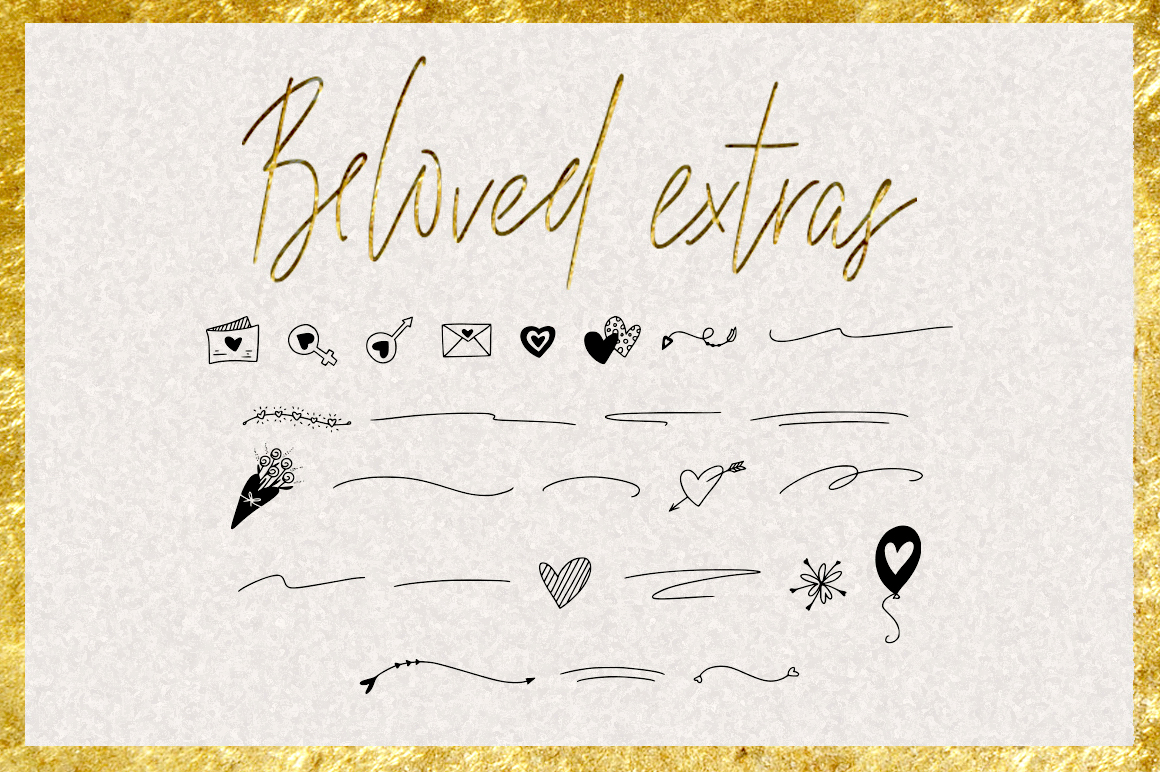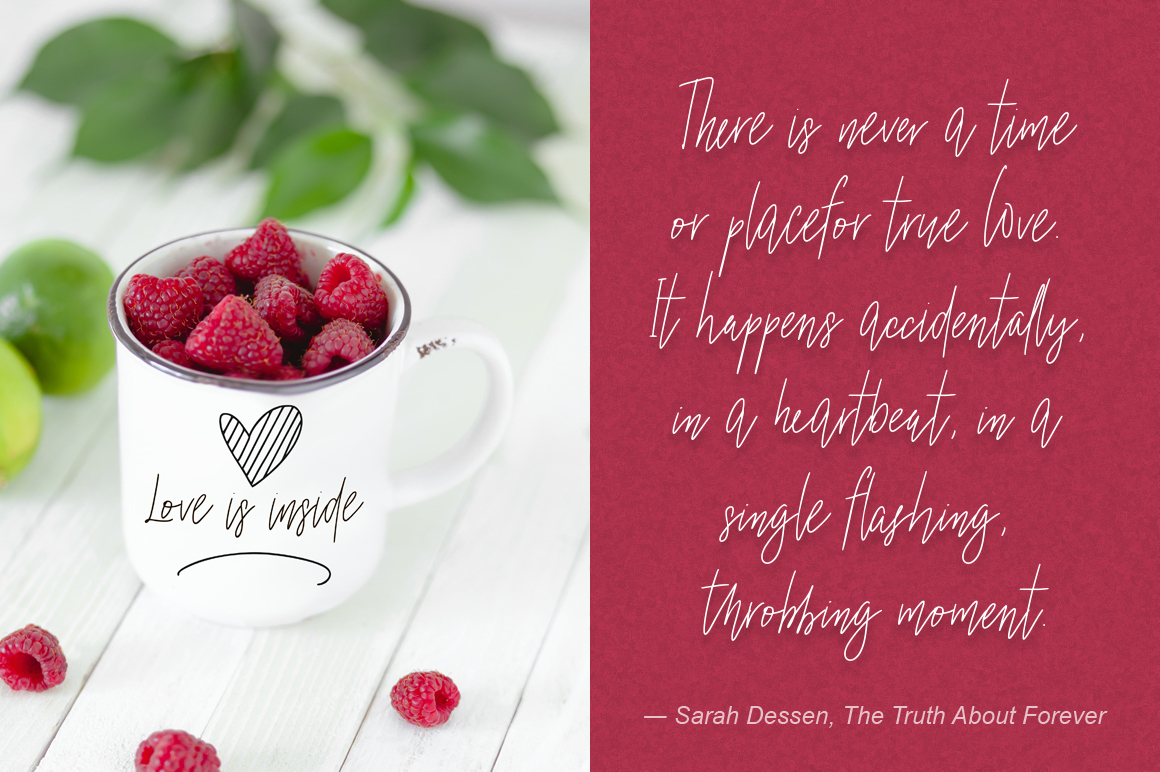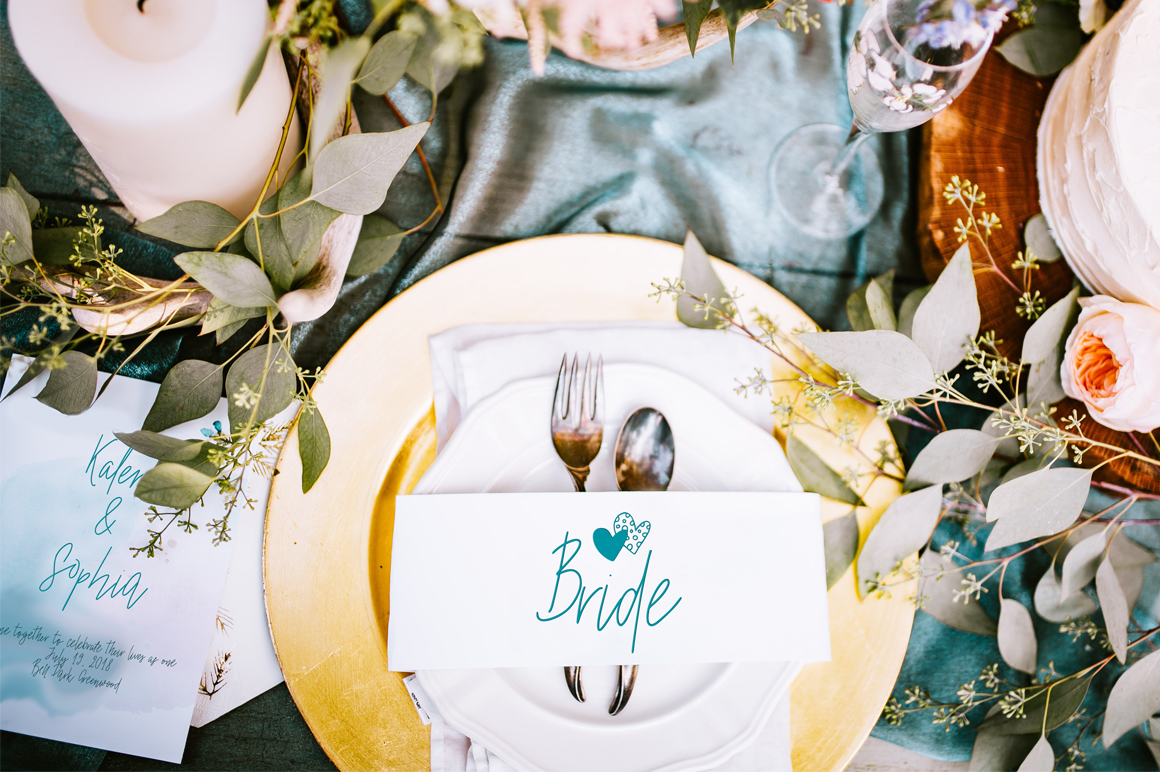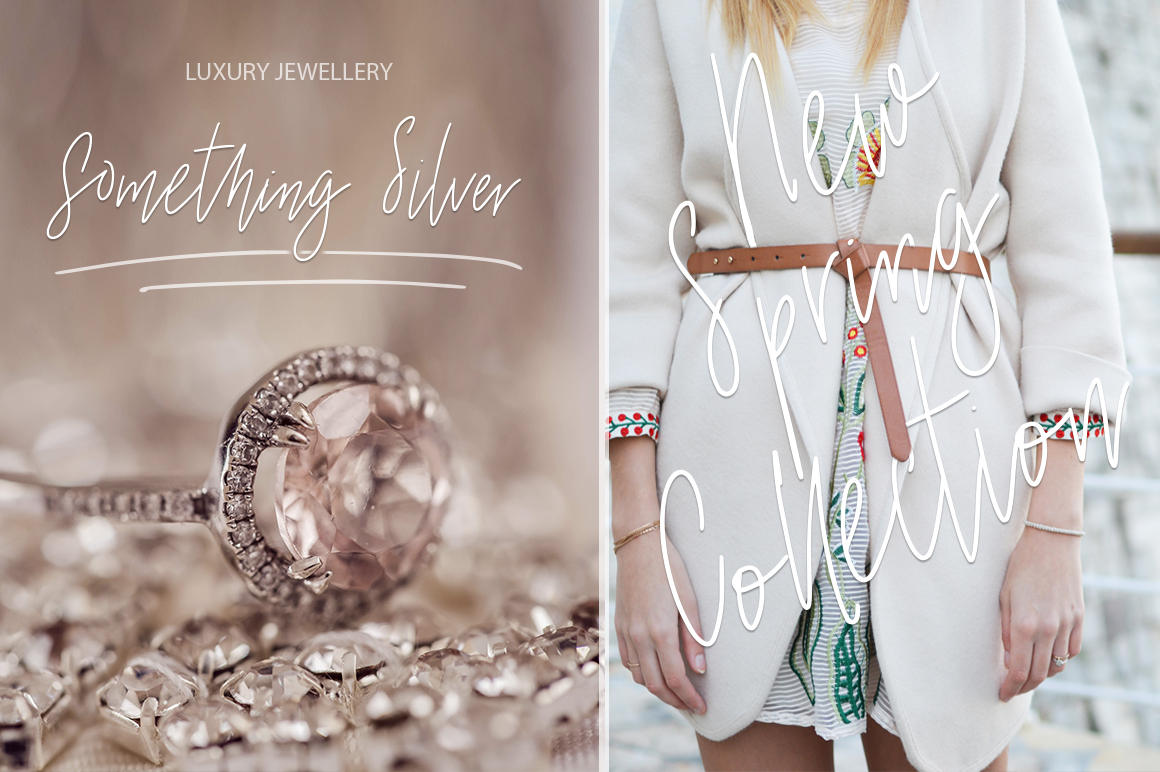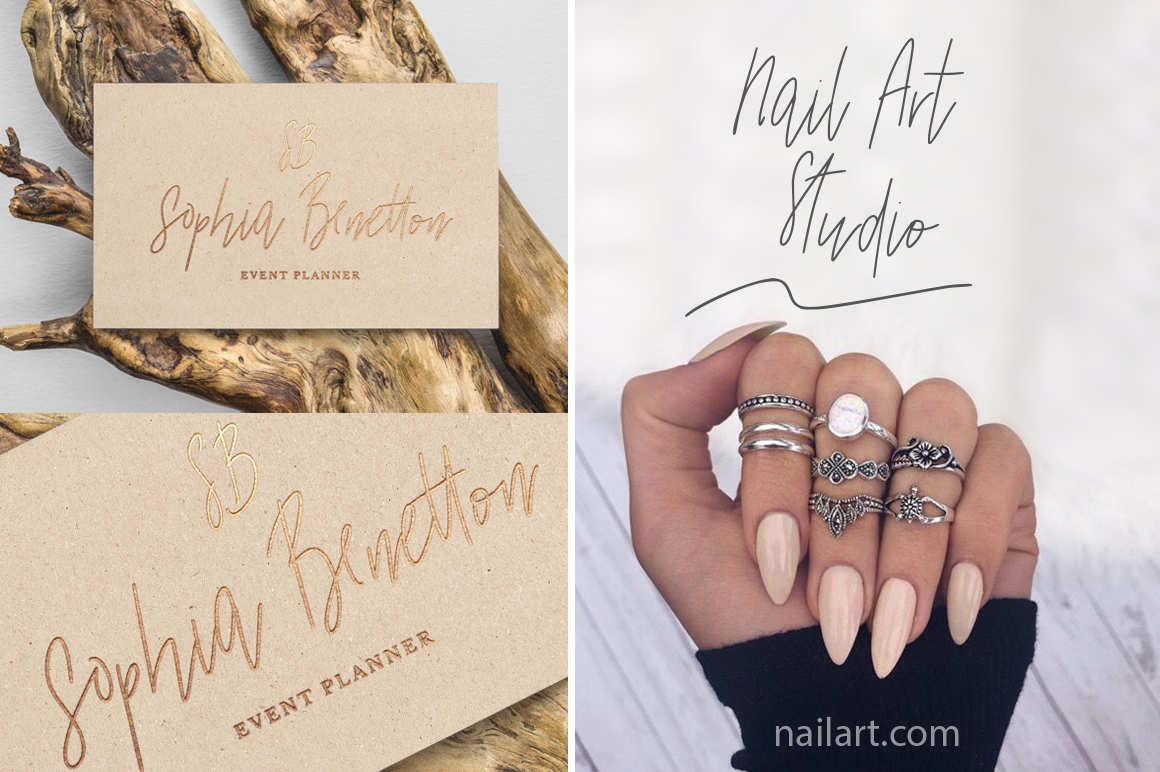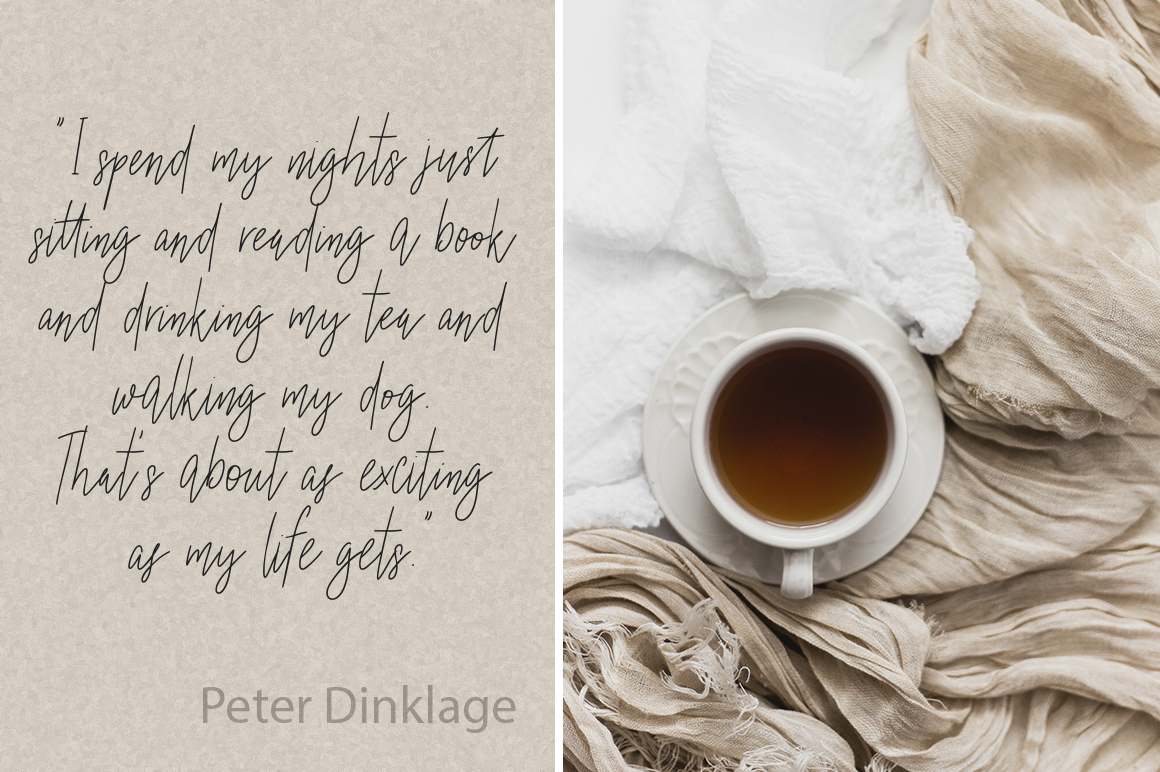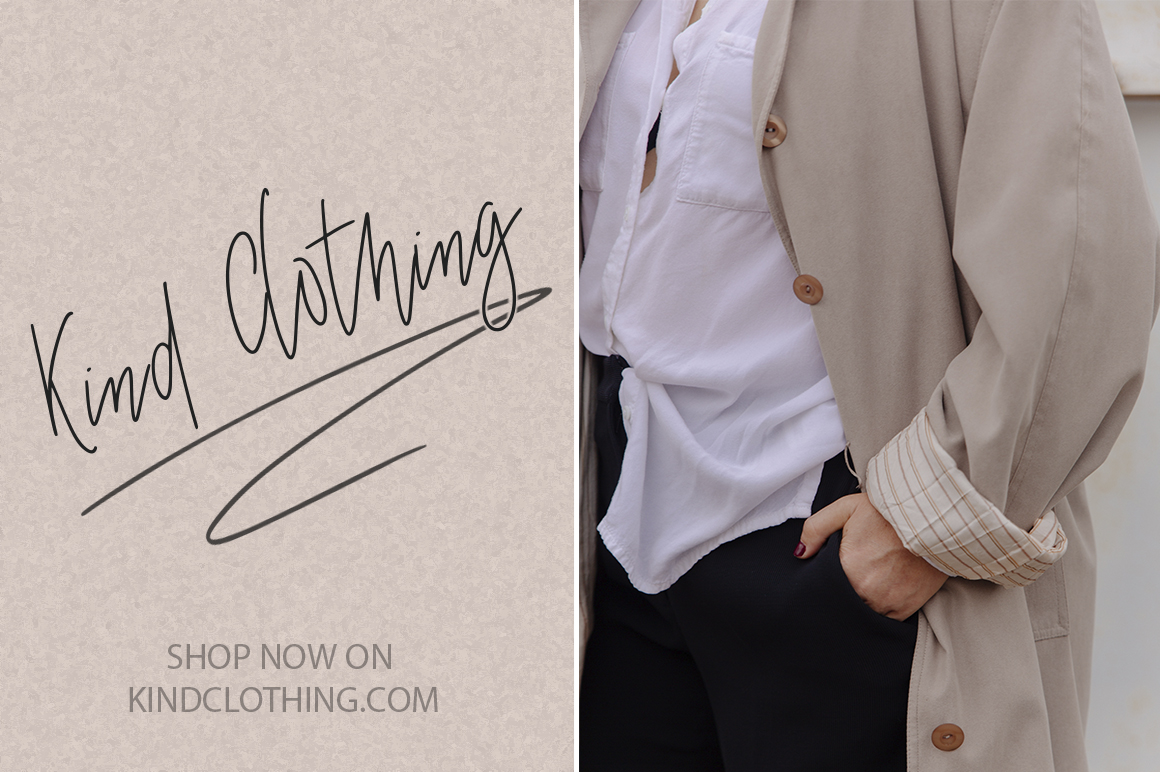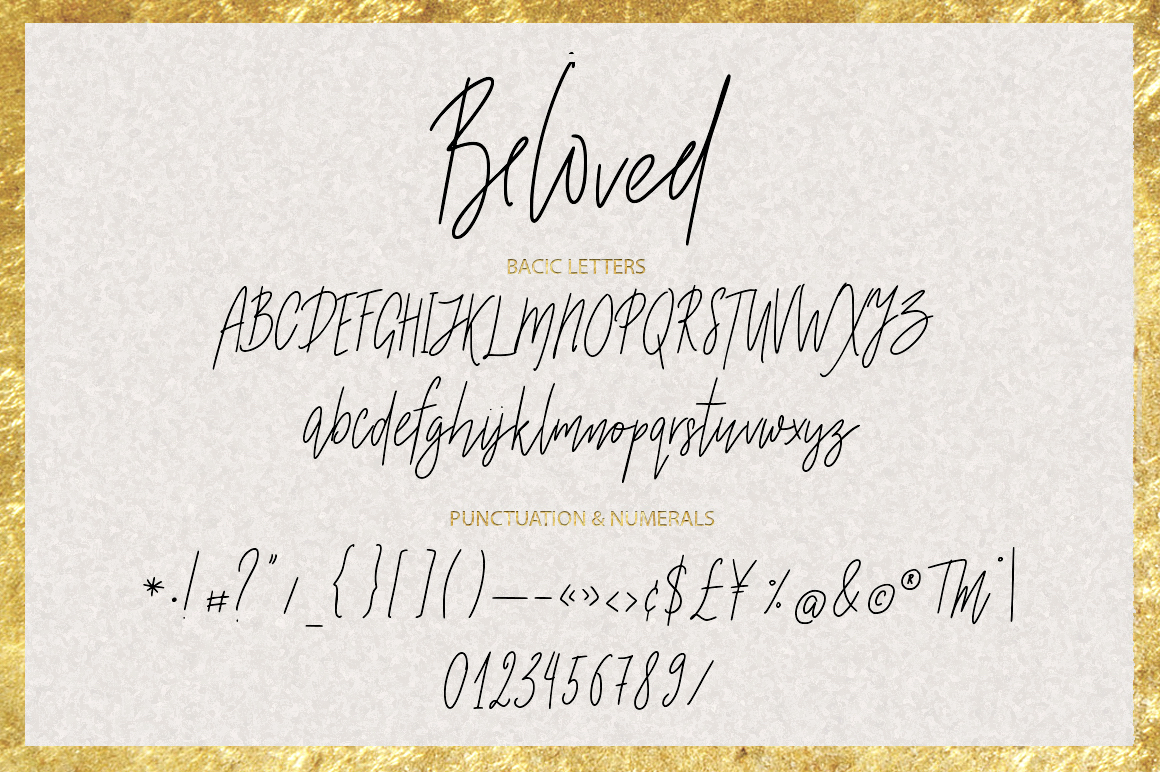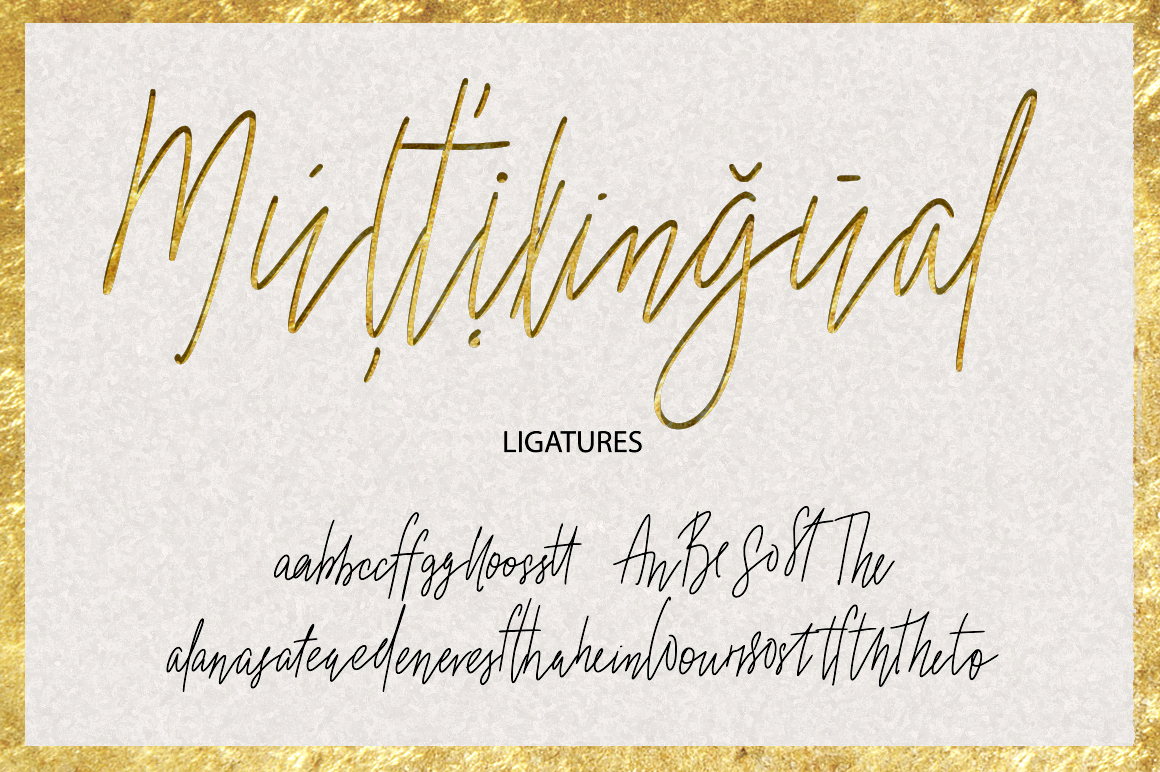
Beloved Font
About Beloved Font
BELOVED is a beautiful script signature font with an unique bouncy character. This font has an incredibly natural and realist hand-lettered style, which can add some true personality to your typographic projects.